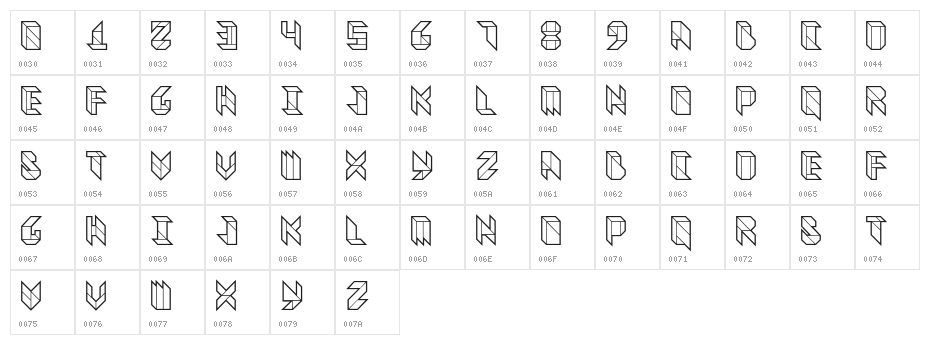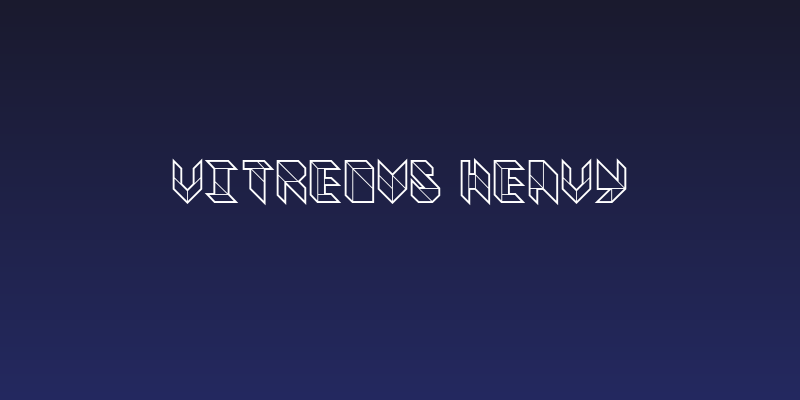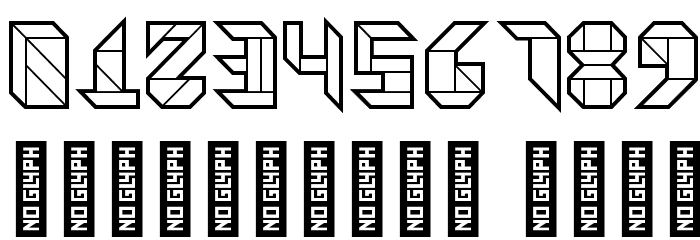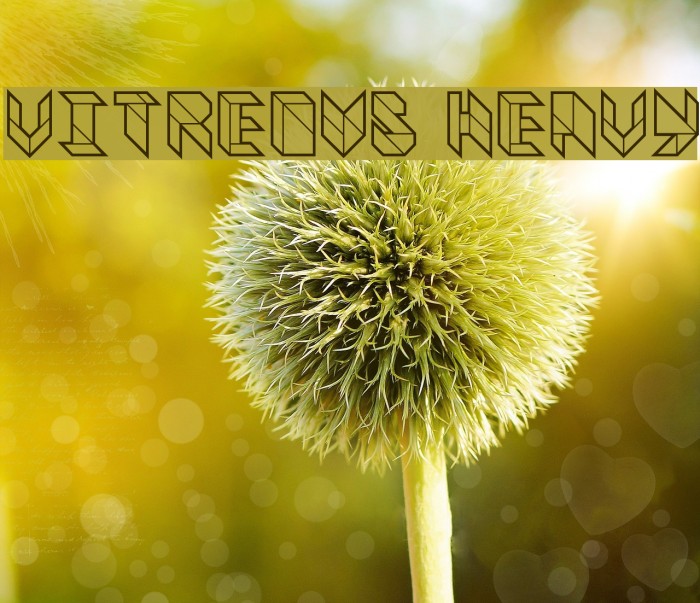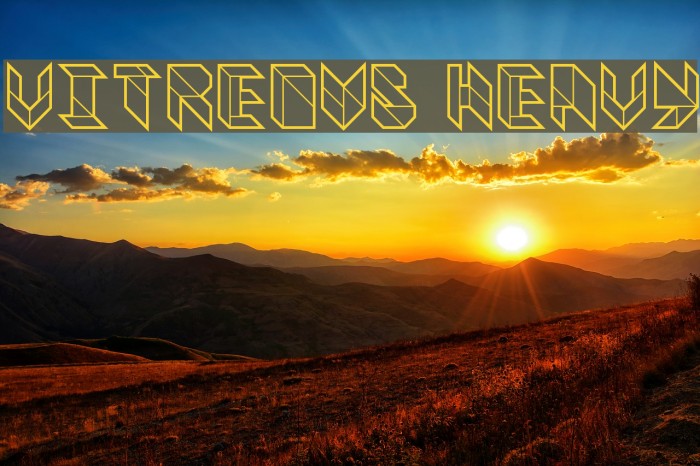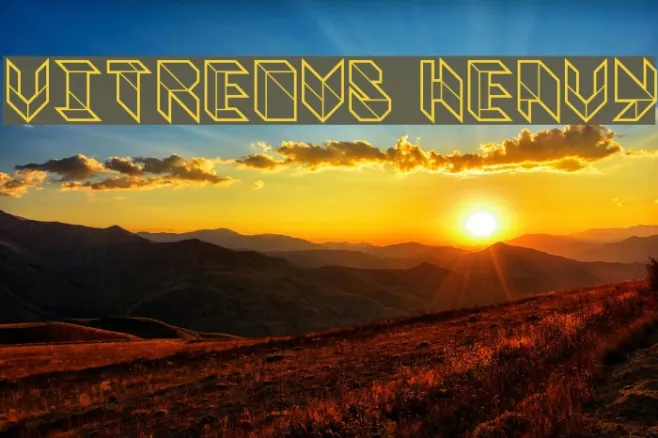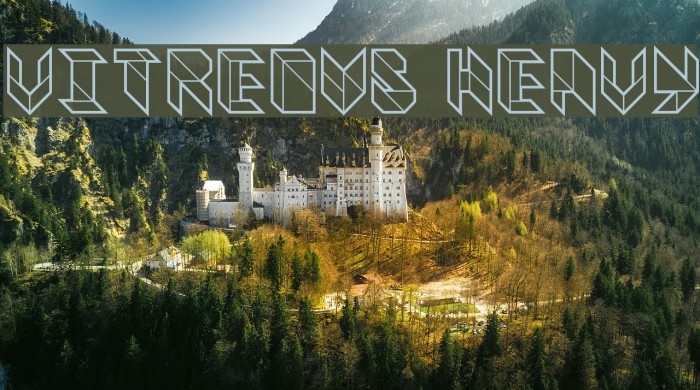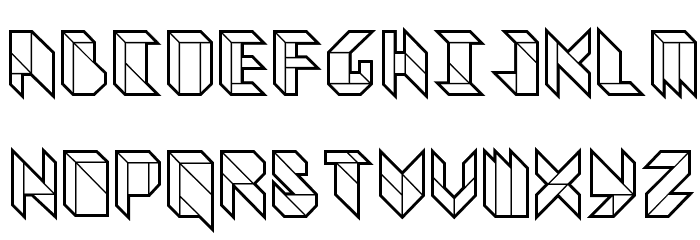
Vitreous Heavy Font
Vitreous Heavy Description
This font features a geometric and angular design, characterized by its bold, block-like structure. Each character is constructed with sharp, straight lines and a distinct three-dimensional effect, giving it a futuristic and industrial feel. The uppercase and lowercase letters maintain a consistent style, emphasizing symmetry and uniformity. The numerals follow the same design principles, ensuring coherence across all characters. The absence of curves and the presence of sharp angles make this font stand out, ideal for projects that require a modern and edgy aesthetic.
| Proposed Projects | Ideal for branding, posters, and digital media that require a modern, industrial look. |